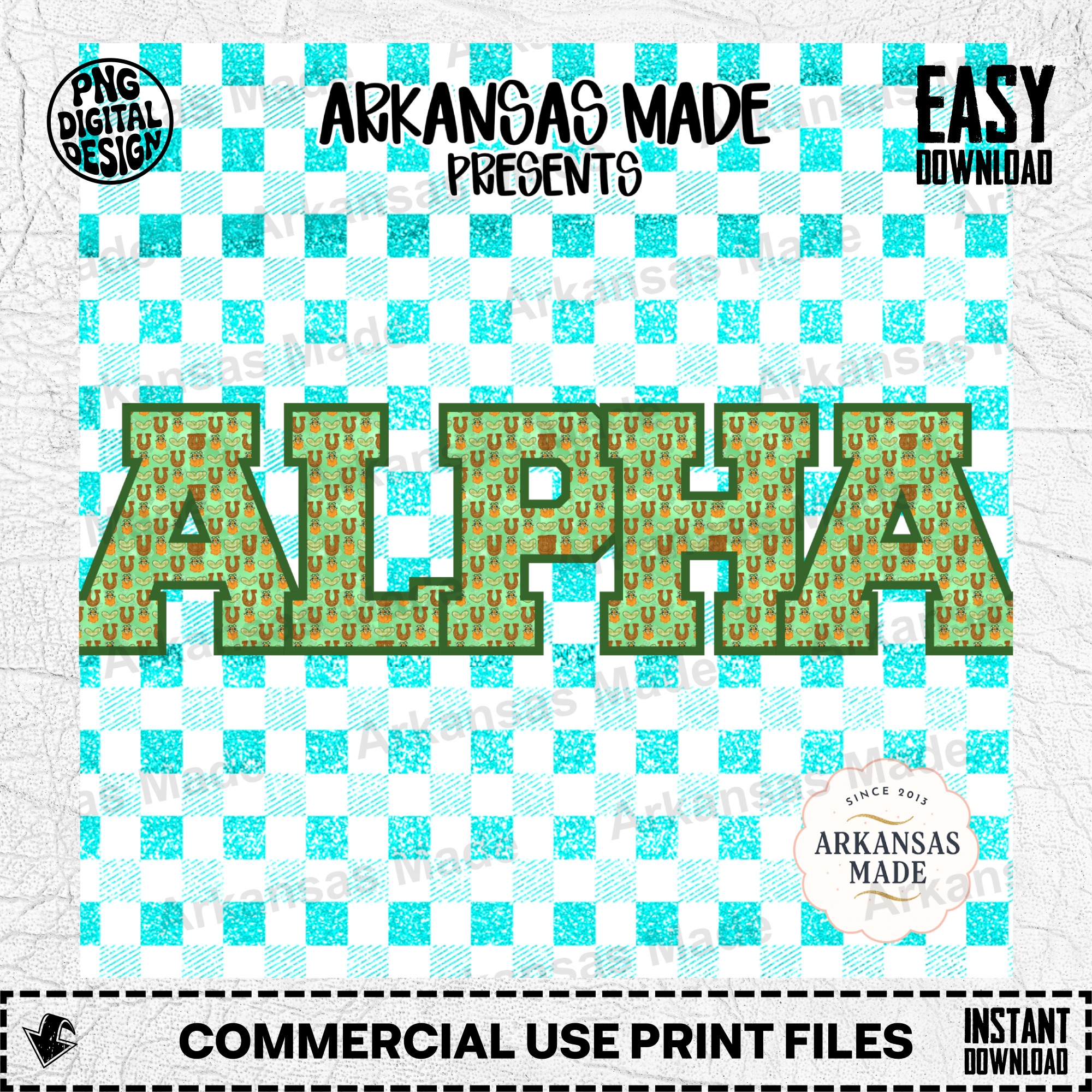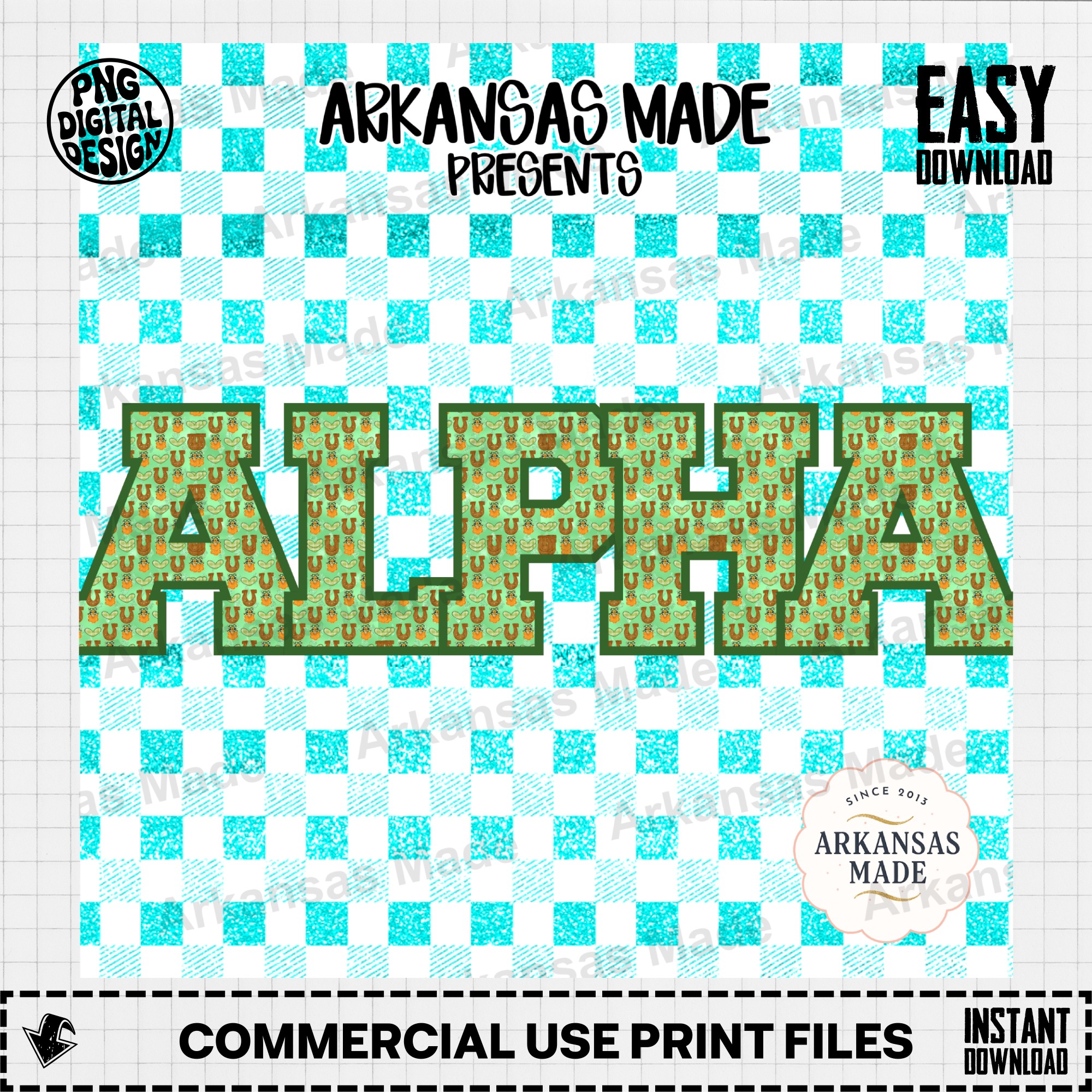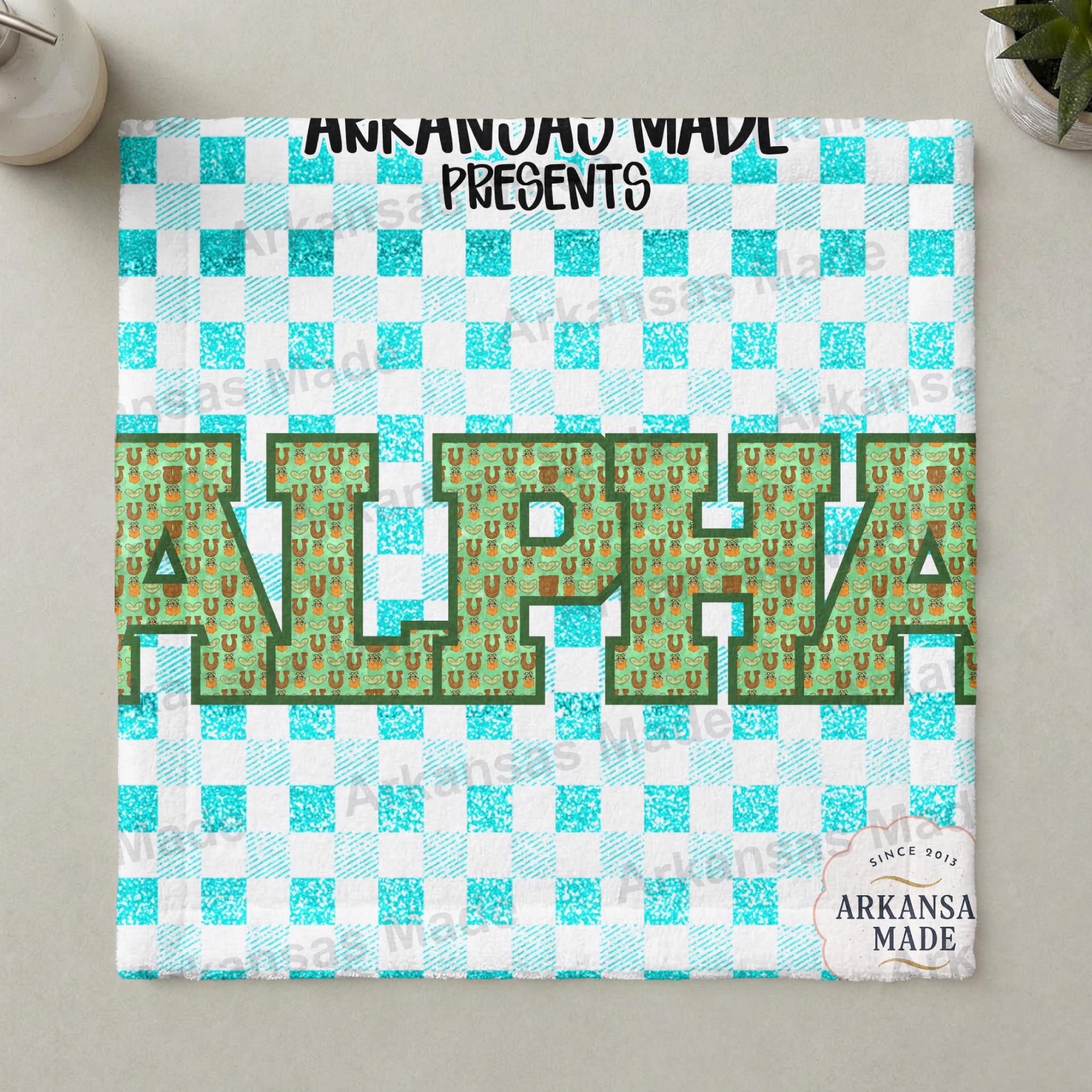
Instantly elevate your St. Patrick’s Day creations with this vibrant Alpha Digital Download Set, perfect for adding a lucky touch to any project. Unleash your creativity with a bold block font filled with charming leprechauns, shamrocks, and horseshoes against a faux glitter teal checkered backdrop. Ideal for crafters, DIY enthusiasts, and small business owners, this set is perfect for sublimation, t-shirt designs, mugs, and more. A fantastic gift for anyone celebrating the Irish holiday or for Greek life sisters and brothers.